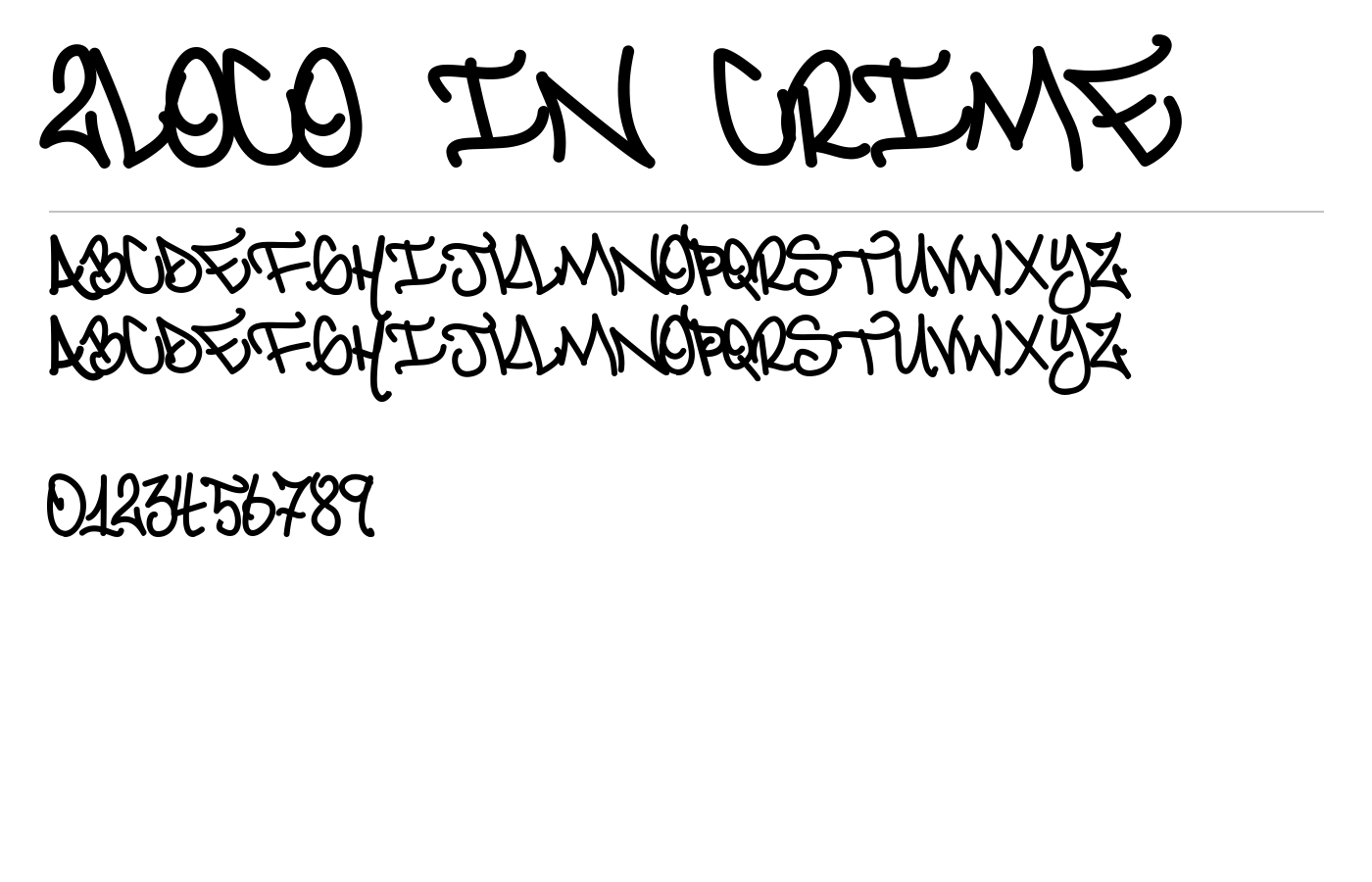
2LOCO IN CRIME is a casual, hand-drawn script font with a playful and edgy graffiti style. Its irregular, flowing lines and tall, narrow letterforms give it a dynamic, urban vibe perfect for creative projects needing a bold, street-inspired look. This font shines in expressive headlines, logos, posters, and designs aiming for a youthful, rebellious personality.
2LOCO IN CRIME Font
About 2LOCO IN CRIME Font